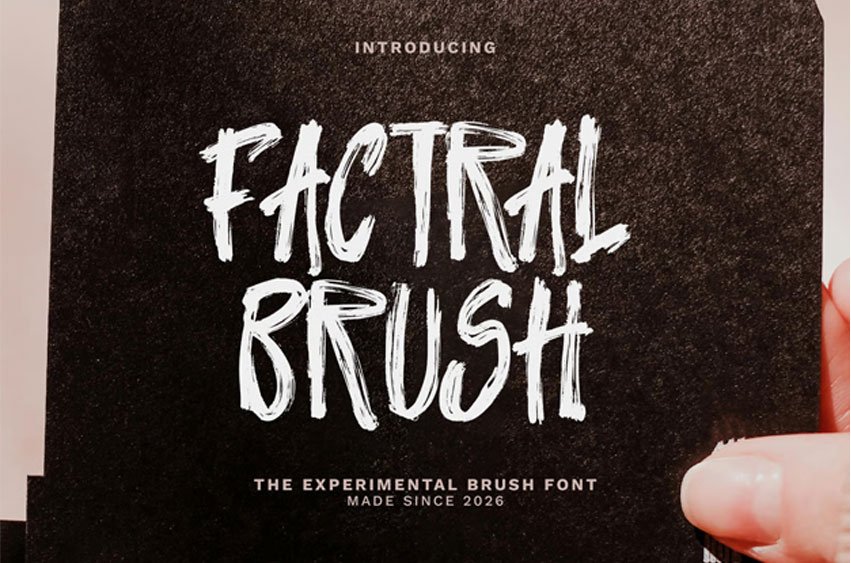
Factral Brush Font
Factral Brush Font is an experimental brush font designed with unconventional strokes and expressive artistic movement. Inspired by freeform brush exploration, this font blends raw texture with creative distortion to produce a distinctive and modern visual style.
Its irregular shapes and bold brush energy create a striking personality while still maintaining usable readability.